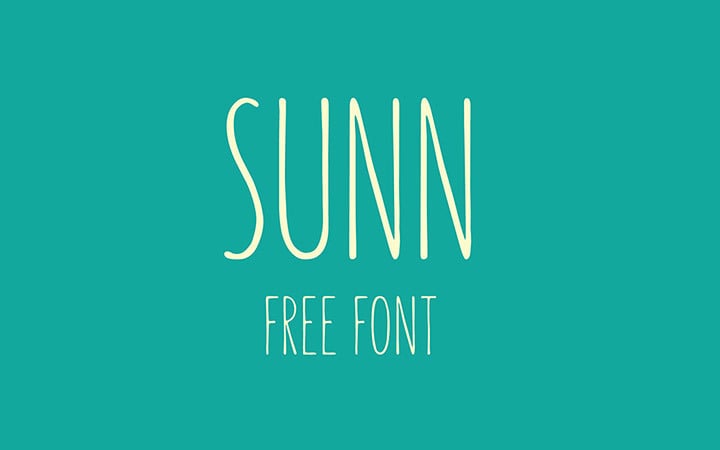
SUNN - Free Handwriting Font
It’s a handwriting font, but with a strong construction, still containing that clumsy look which makes handrwitten fonts so cool for headlines or short descriptions!